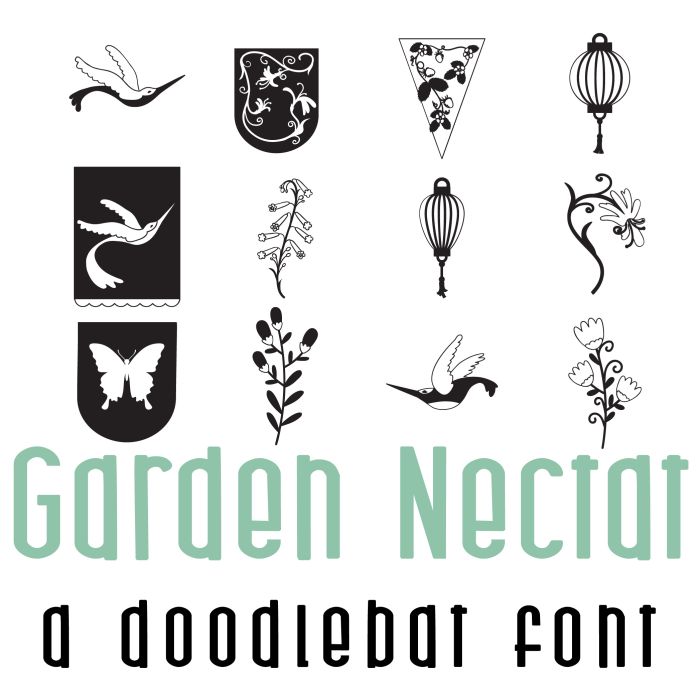
This doodlebat font features 26 flowers, humming birds, butterflies and plants perfect for cards, crafts, gifts, decor, scrapbook pages, planner stickers, and more!